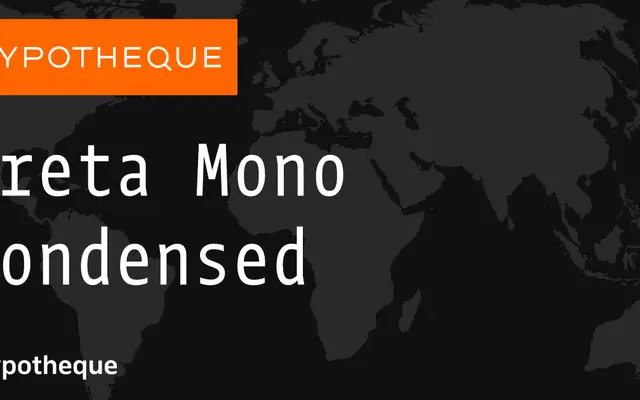
Greta Mono Condensed
A condensed cut of the Greta Mono system, offering ten weights with matching italics for tight-measure monospaced setting.
Part of Typotheque's Greta Mono system, the Condensed variant runs from Hairline to Black with a full set of italics across all ten weights. The narrow proportions make it suited to interfaces, code editors or any context where a monospaced grid needs to occupy less horizontal space. It sits alongside the standard Greta Mono and a variable font version, giving designers flexibility across width and weight.
A monospaced typeface in a condensed width, part of the broader Greta Mono system. Its narrow proportions distinguish it from the standard Greta Mono cut while retaining the monospaced character grid.